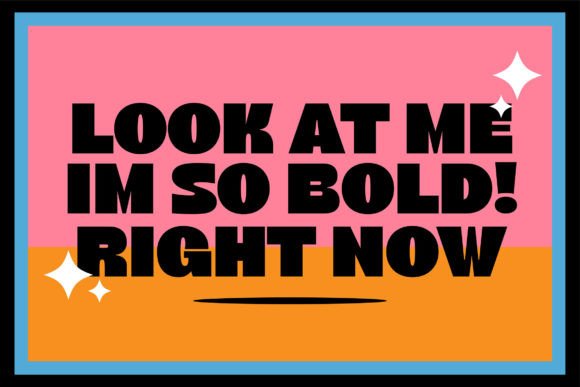
**Captivating Sans Serif: Casgate Font - The Essence of Bold Branding**
In the realm of branding, Casgate font emerges as a true game-changer, a black sans serif font that commands attention with its bold shapes and striking character. This font is not just a collection of letters; it's a symphony of visual impact, an artistic expression that elevates your designs to new heights.
**Unleash Your Brand's Potential with Casgate**
Casgate is more than just a font; it's a strategic tool that empowers you to craft a brand identity that stands out from the crowd. Its bold and distinctive style makes it the perfect choice for creating logos that linger in the minds of your audience. Its strong personality shines through in posters, captivating social media posts, and striking magazine covers. Casgate transforms ordinary packaging into eye-catching masterpieces, ensuring your products demand attention on any shelf.
**A Font with a Purpose: The Perfect Fit for Your Creative Vision**
Whether you're a seasoned designer or just starting your creative journey, Casgate is your perfect companion. Its versatility knows no bounds, adapting seamlessly to a wide range of projects. From crafting logos that exude authority and confidence to creating posters that burst with energy and vibrancy, Casgate is the ultimate choice for those who dare to make a statement.
**Embrace the Power of Visual Distinction**
With Casgate as your font of choice, you'll discover a new level of creative freedom. Its small white space complements its bold shapes, creating a visual tension that captivates and compels. This font is a master of contrast, making it ideal for creating headlines that leap off the page and demand attention.
**Experience the Casgate Difference: A Font That Speaks Volumes**
Casgate is more than just a font; it's a symbol of individuality and boldness. It's the perfect choice for those who want to create visual experiences that resonate with their audience. Its distinct style leaves a lasting impression, etching your brand into the minds of consumers, leaving them with a lasting memory of your message.
**Embark on a Typographic Adventure with Casgate**
With Casgate as your guide, you're embarking on a typographic adventure, a journey where creativity knows no limits. Its strong character shines through in every letterform, adding a touch of sophistication and elegance to your designs. Casgate is a font that empowers you to express yourself fearlessly, to create designs that reflect your unique vision and leave an indelible mark on the world.